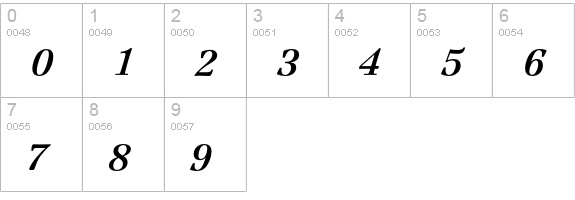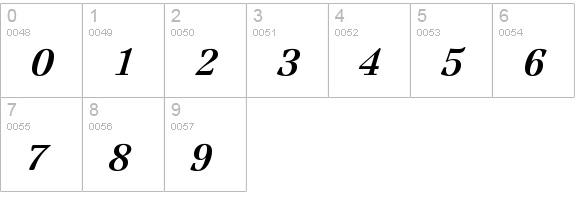
JamilleEF-BoldItalic Font Details
JamilleEF-BoldItalic is a striking and eye-catching font that effortlessly combines boldness with elegance. Its unique design features bold, slanted letterforms that exude confidence and sophistication. With its distinctive style, this font is perfect for adding a touch of flair to any design project. What makes JamilleEF-BoldItalic even more appealing is the fact that it is available for free. Yes, you read that right - this remarkable font can be downloaded without any cost at FontsMarket.com. Whether you are a professional designer or a hobbyist, having access to high-quality fonts like JamilleEF-BoldItalic can elevate your creative work to new heights. The versatility of JamilleEF-BoldItalic is another notable aspect. From branding materials and advertisements to social media graphics and website designs, this font can be used in a wide range of applications. Its bold and italicized nature adds emphasis and visual interest, ensuring that your message stands out from the crowd. The legibility of JamilleEF-BoldItalic is exceptional, making it easy to read even at smaller sizes. Each letter is carefully crafted, resulting in a harmonious balance between thickness and curvature. This attention to detail ensures that your text remains clear and readable, no matter the context. Whether you are designing a logo, creating a poster, or working on a digital project, JamilleEF-BoldItalic is a font that will not disappoint. Its boldness, elegance, and the fact that it is freely available to download at FontsMarket.com make it an excellent choice for designers who are looking to add a touch of uniqueness to their work. So why wait? Download JamilleEF-BoldItalic today and let your creativity soar.